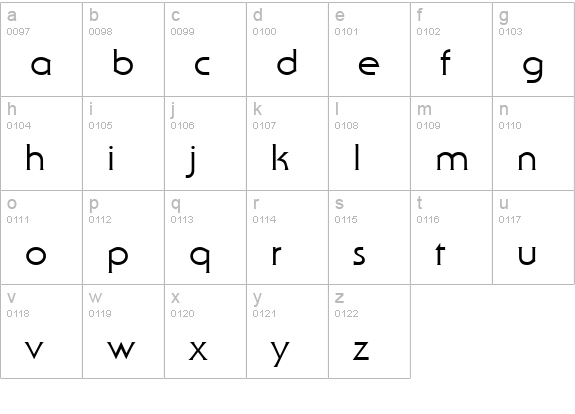
Staid Gothic Regular is the standard, neutral variant in the Staid typeface family \xE2\x80\x94 well suited to general body text, paragraphs, and standard typographic work.
Staid Gothic Regular is a timeless font that exudes a sense of sophistication and elegance. With its clean lines and sharp edges, this font captures the essence of classic Gothic typography, while still maintaining a modern appeal. Its balanced proportions and consistent spacing make it highly versatile, suitable for a wide range of design projects. What sets Staid Gothic Regular apart is its availability as a free font. In a world where quality fonts often come at a cost, Staid Gothic Regular breaks the mold by offering its exceptional design freely to all. Whether you are a professional designer or a creative enthusiast, this font is a valuable addition to your toolkit. Downloading Staid Gothic Regular is quick and effortless. Simply visit FontsMarket.com, a renowned platform for font enthusiasts, and you will find this beautiful font waiting for you. With just a few clicks, you can enhance your designs with the timeless elegance of Staid Gothic Regular. Whether you are creating a logo, designing a website, or working on a branding project, Staid Gothic Regular is a reliable choice. Its sleek and sophisticated aesthetic will elevate your design, adding a touch of class and refinement. The clear legibility of this font ensures that your message is conveyed with clarity and professionalism. So why wait? Embrace the beauty and versatility of Staid Gothic Regular today. Download it for free at FontsMarket.com and unlock a world of possibilities for your design projects.